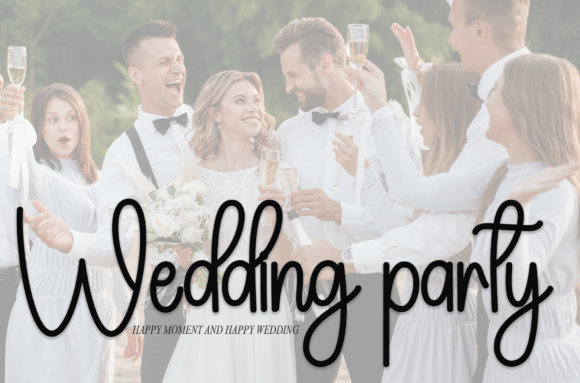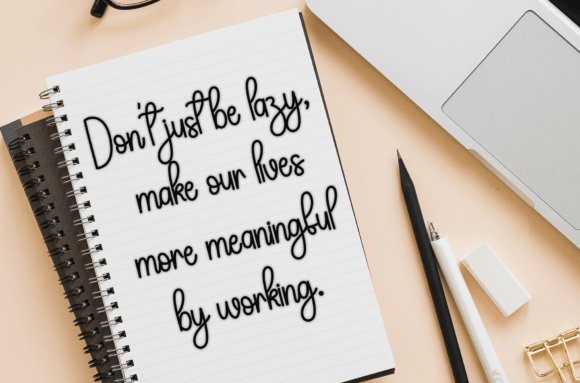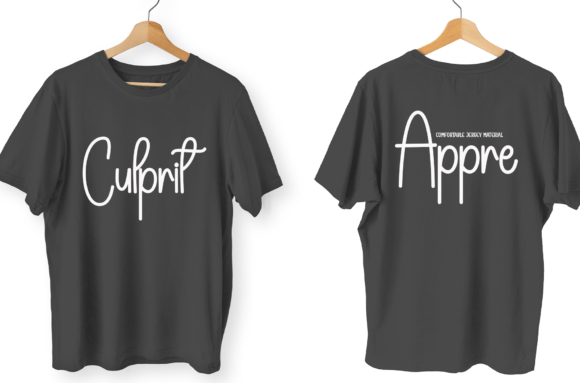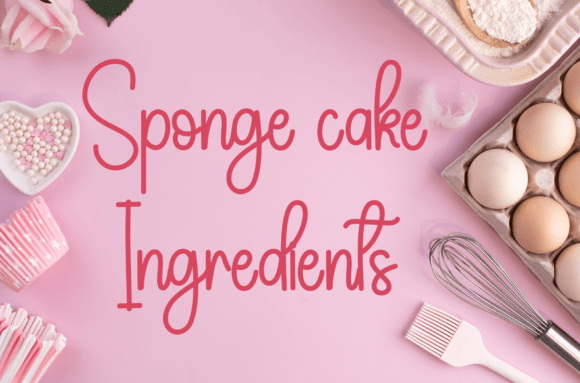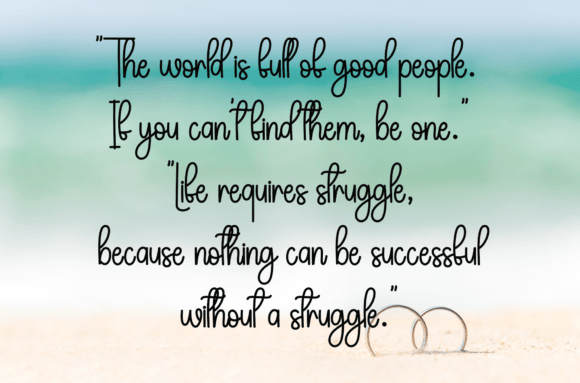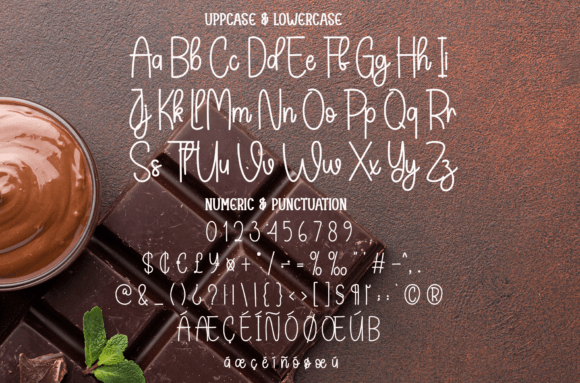
Brown Font: The Sweet and Friendly Handwritten Font for Your Creative Projects
Are you looking for a font that can add a touch of warmth and personality to your designs? Look no further than Brown Font! This sweet and friendly handwritten font is perfect for creating wedding invitations, cards, and other designs that require a fun and playful touch. In this article, we’ll explore the features and benefits of Brown Font, and how it can elevate your creative projects.
What is Brown Font?
Brown Font is a beautiful handwritten font that exudes a sense of freshness and neatness. Its unique and elegant style makes it ideal for a wide range of design applications, from wedding invitations and cards to posters, flyers, and more. Whether you’re a designer, crafter, or DIY enthusiast, Brown Font is a versatile and user-friendly font that can help you create stunning designs with ease.
Key Features of Brown Font
- Handwritten style: Brown Font has a lovely handwritten style that adds a personal touch to your designs.
- Fresh and neat: The font’s fresh and neat appearance makes it perfect for creating clean and elegant designs.
- Versatile: Brown Font can be used for a wide range of design applications, from wedding invitations to posters and flyers.
Benefits of Using Brown Font
So, why should you choose Brown Font for your creative projects? Here are just a few benefits of using this amazing font:
- Adds a personal touch: Brown Font’s handwritten style adds a personal touch to your designs, making them more relatable and engaging.
- Creates a warm and friendly feel: The font’s warm and friendly appearance creates a cozy and inviting atmosphere, perfect for designs that require a touch of personality.
- Perfect for wedding and event designs: Brown Font is ideal for creating wedding invitations, cards, and other event designs that require a touch of elegance and sophistication.
- Great for branding and marketing: The font’s unique and memorable style makes it perfect for branding and marketing applications, such as logos, brochures, and business cards.
Tips for Using Brown Font
Here are some tips for getting the most out of Brown Font:
- Pair with other fonts: Brown Font pairs well with other fonts, such as sans-serif fonts, to create a unique and interesting contrast.
- Use for headings and titles: The font’s bold and elegant style makes it perfect for headings and titles.
- Add a personal touch: Use Brown Font to add a personal touch to your designs, such as in quotes, testimonials, or captions.
Where to Use Brown Font
Brown Font can be used in a wide range of design applications, including:
- Wedding invitations and cards: The font’s elegant and sophisticated style makes it perfect for wedding designs.
- Posters and flyers: Brown Font is great for creating eye-catching posters and flyers that require a touch of personality.
- Branding and marketing: The font’s unique and memorable style makes it perfect for branding and marketing applications.
- DIY projects: Brown Font is a great choice for DIY enthusiasts who want to add a personal touch to their projects.
In conclusion, Brown Font is a sweet and friendly handwritten font that’s perfect for adding a touch of warmth and personality to your designs. With its fresh and neat appearance, versatile style, and ease of use, Brown Font is a great choice for designers, crafters, and DIY enthusiasts alike. Whether you’re creating wedding invitations, cards, posters, or other designs, Brown Font is sure to elevate your creative projects and make them stand out.